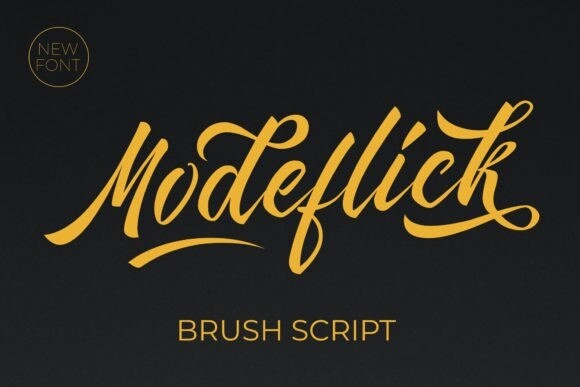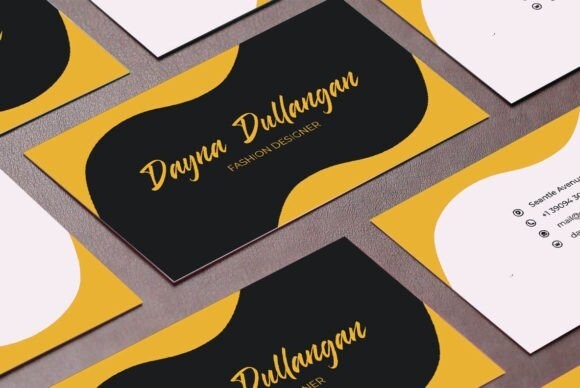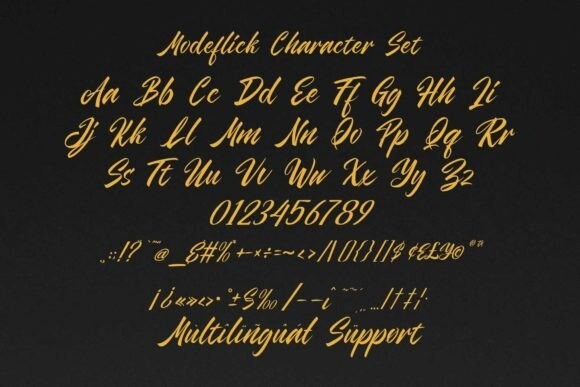
Modeflick Font
Modeflick Font is a bold and eye-catching brush script. It is perfectly used for logos, magazines, books, greeting/wedding cards, packaging, fashion, make up, stationery, novels, labels or any type of advertising purpose.